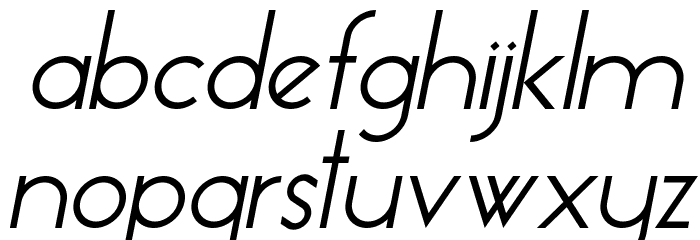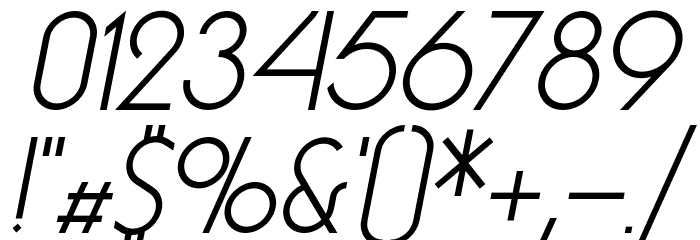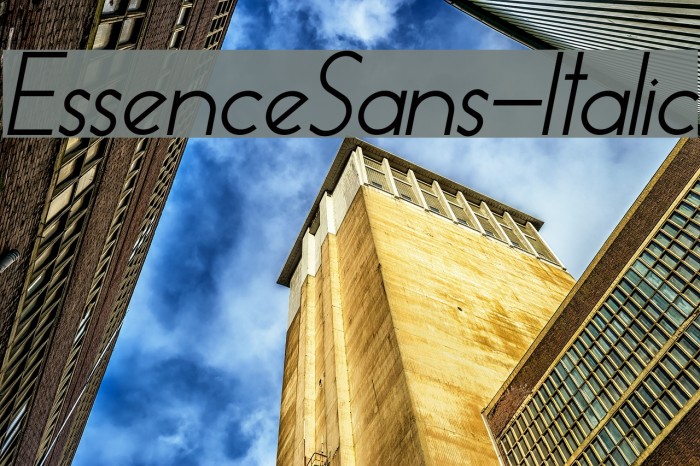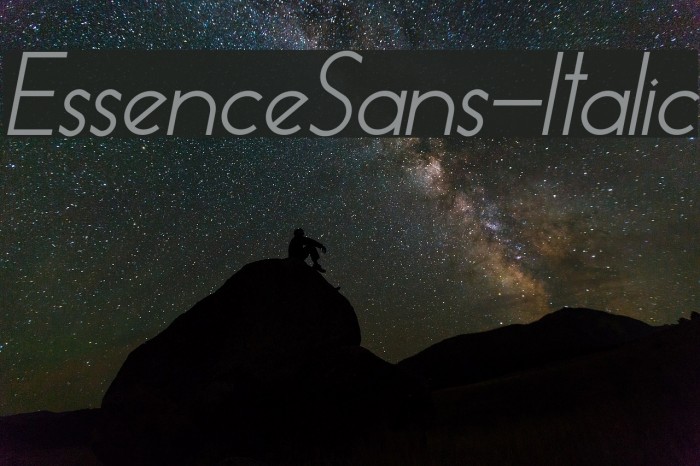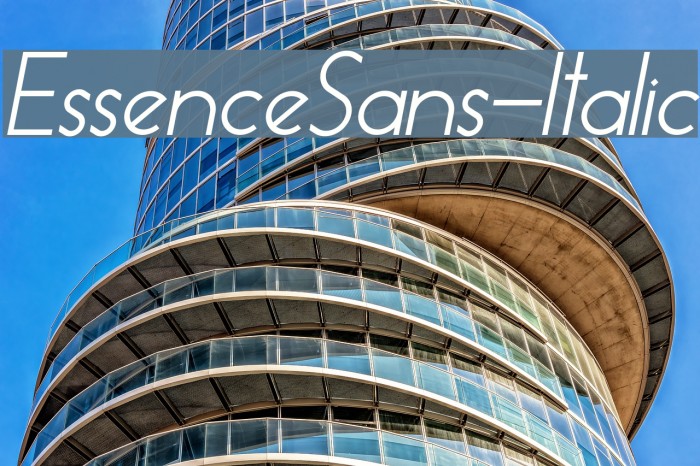
EssenceSans-Italic Font
This font features a sleek and modern sans-serif design with an italic slant, giving it a dynamic and fluid appearance. The characters are elegantly elongated with smooth curves and sharp edges, creating a sense of motion and sophistication. The uppercase letters are tall and commanding, while the lowercase letters maintain a consistent flow with rounded forms. The numerals are clear and distinct, ensuring readability. Special characters are well-integrated, maintaining the overall aesthetic. The font's clean lines and contemporary style make it versatile for various design applications.
A modern, italic sans-serif font with sleek, elongated characters.
- Proposed Projects: Ideal for branding, editorial design, advertising, and digital interfaces where a modern and stylish look is desired.